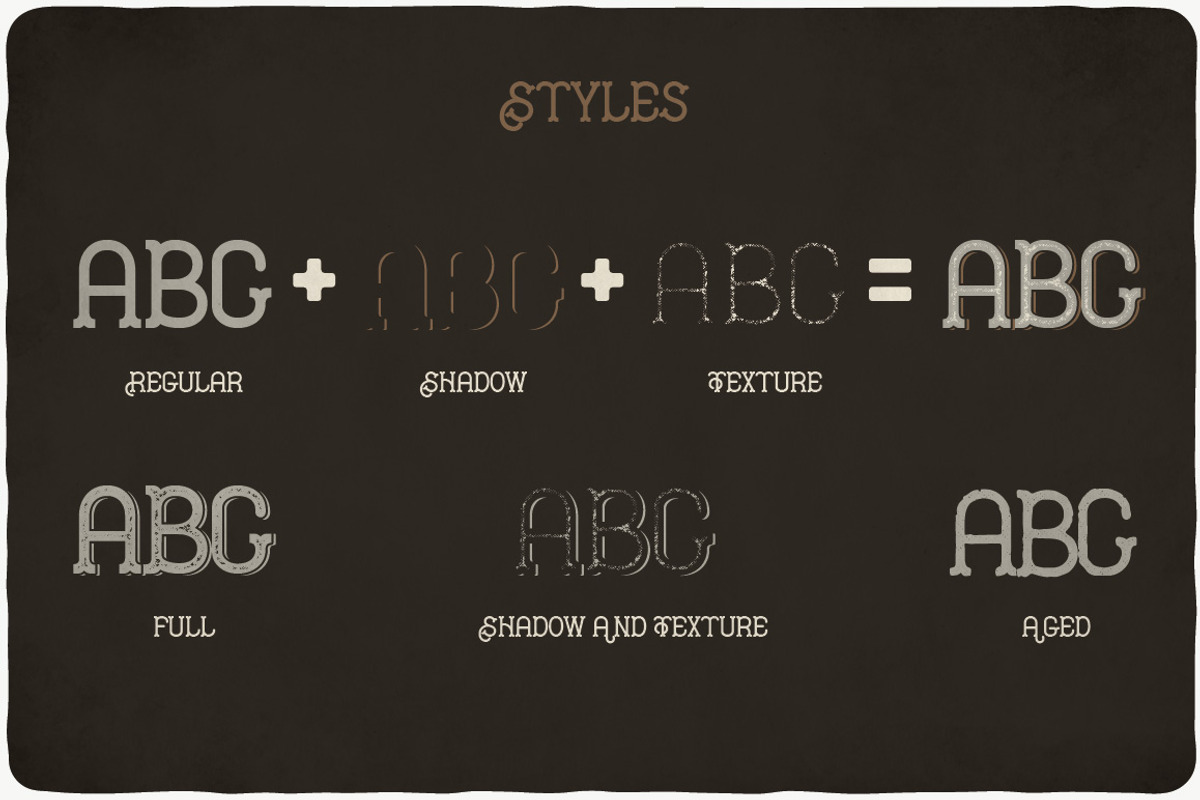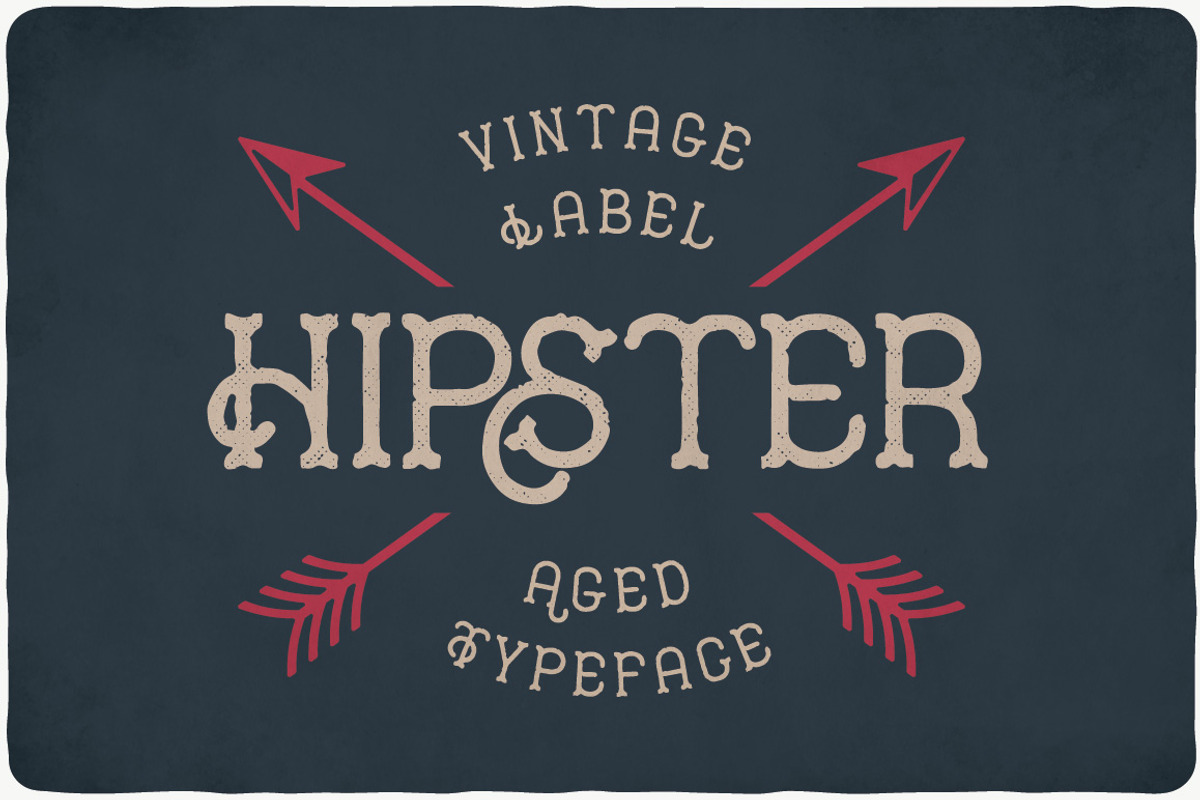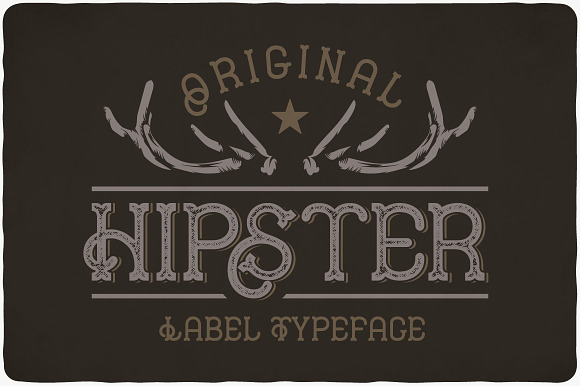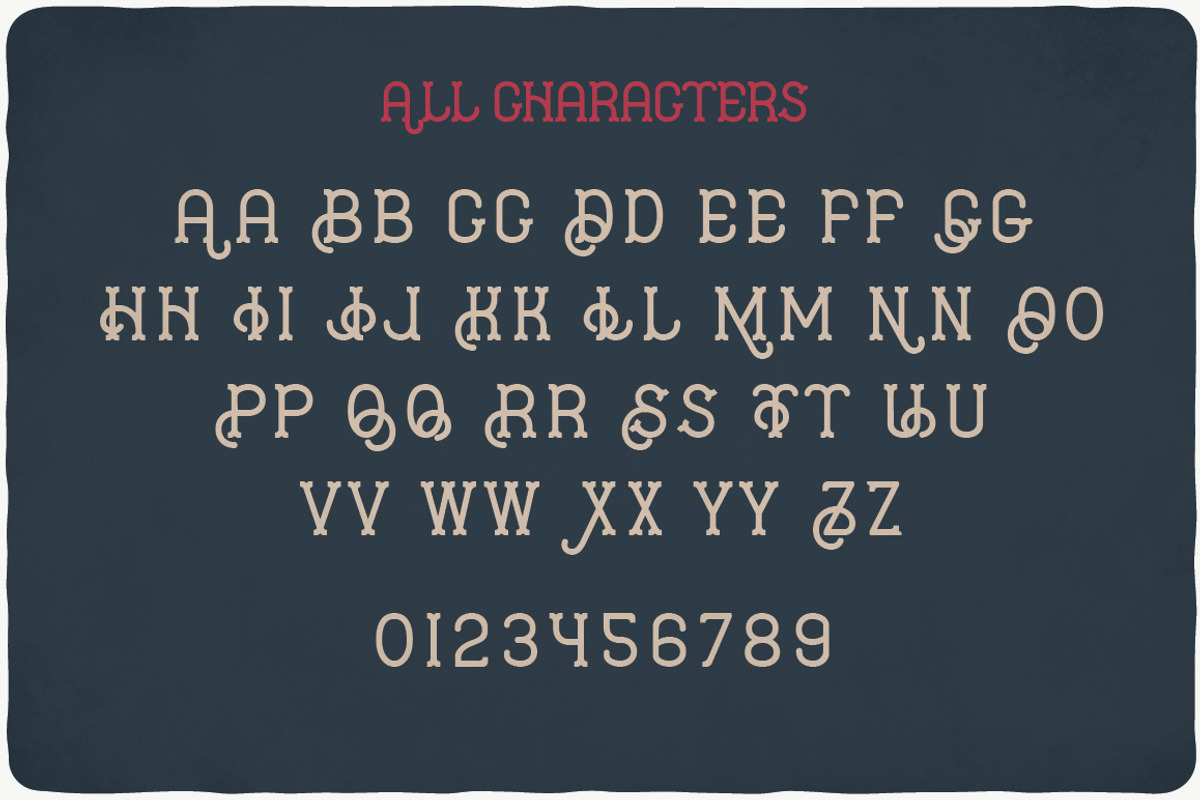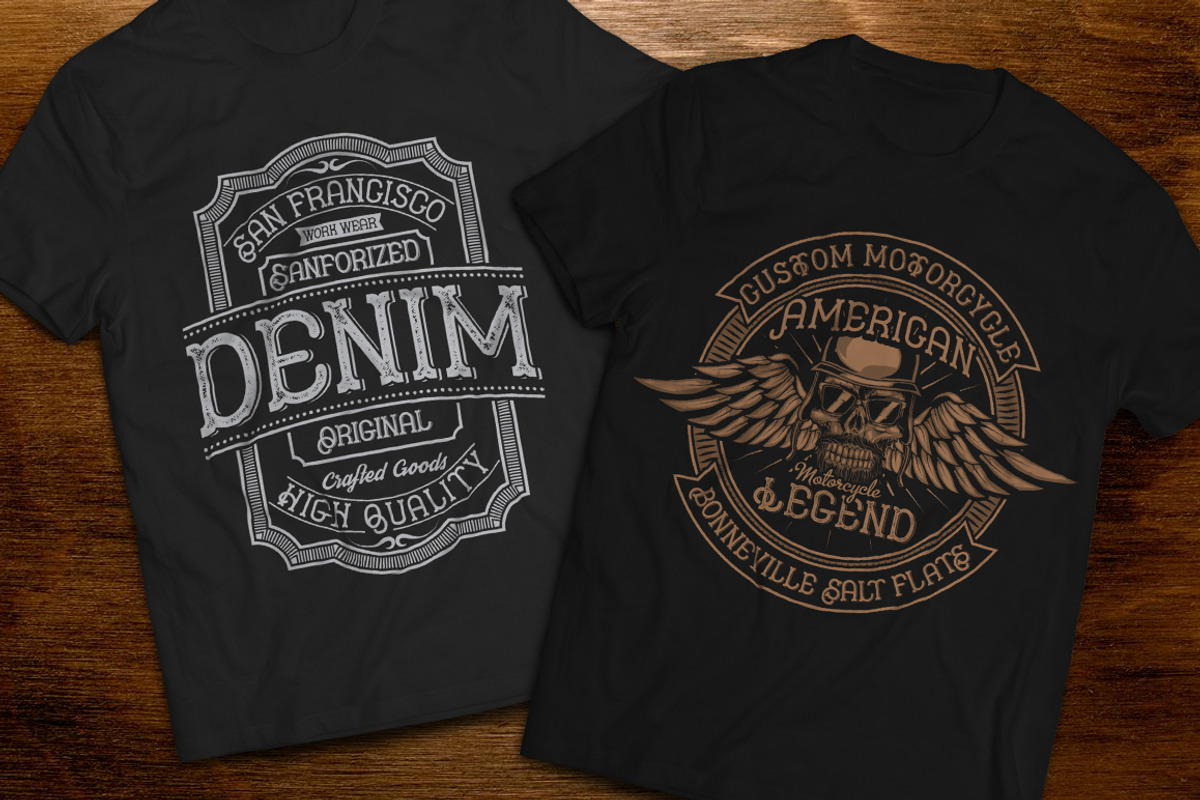
Hipster Typeface
Introducing a vintage look label typeface named "Hipster". This typeface contains layers - light and shadow, for sample look at 4th preview. Plus aged (distressed) version. Typeface is good viewed on any yours design.
- This typeface contains layers - light and shadow, for sample look at 4th preview.
- Hipster Regular
- Hipster Aged
- Hipster Full
- Hipster Shadow
- Hipster Texture
- Hipster Texture Shadow